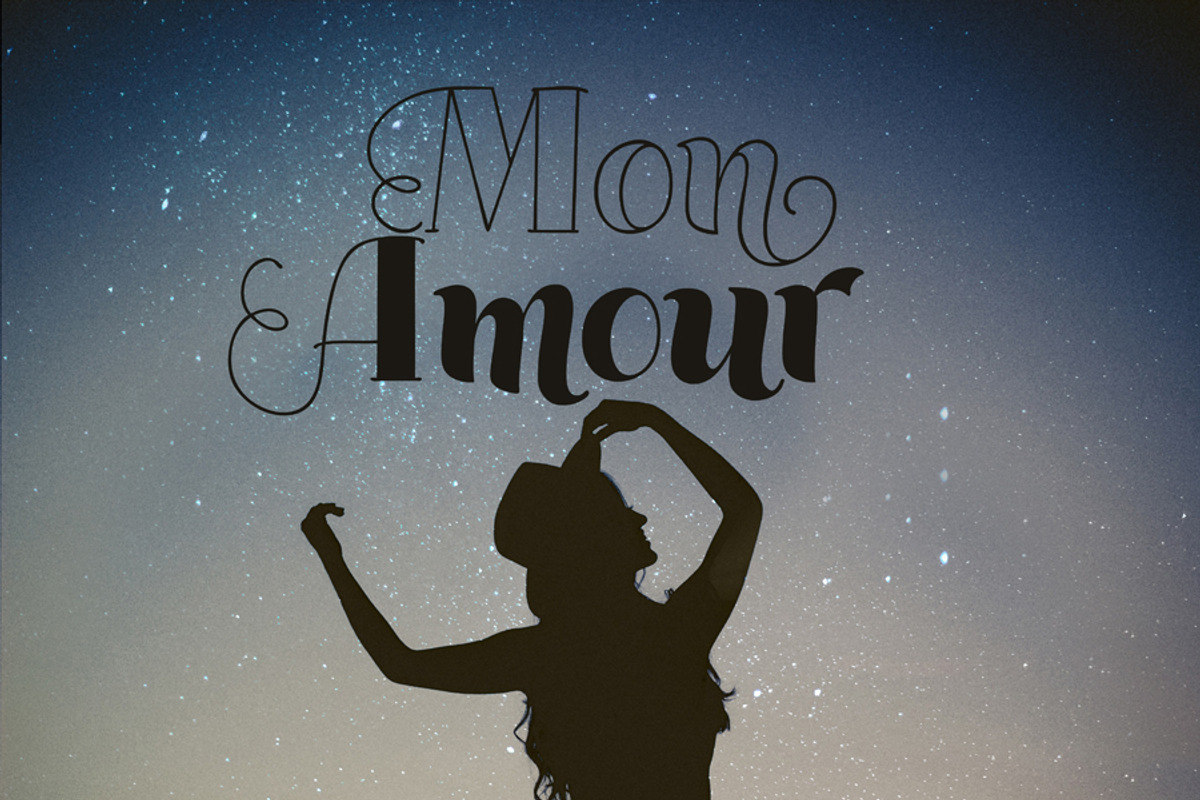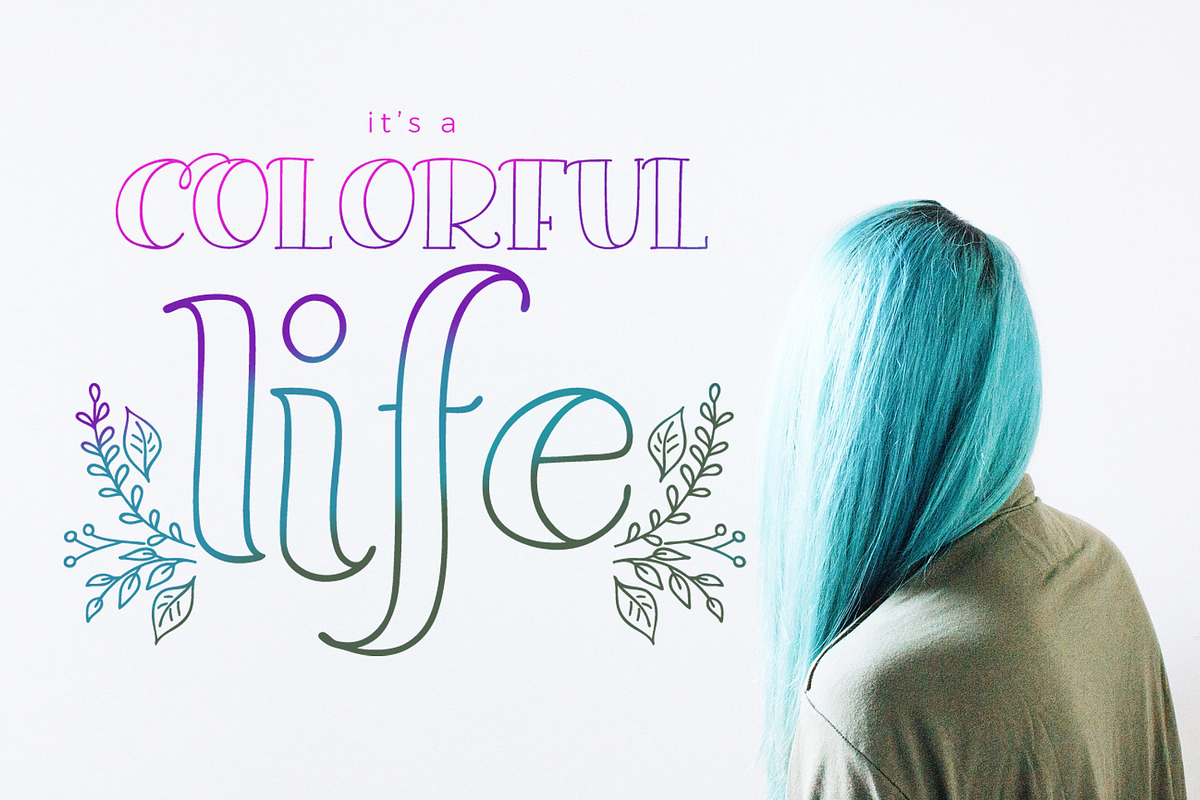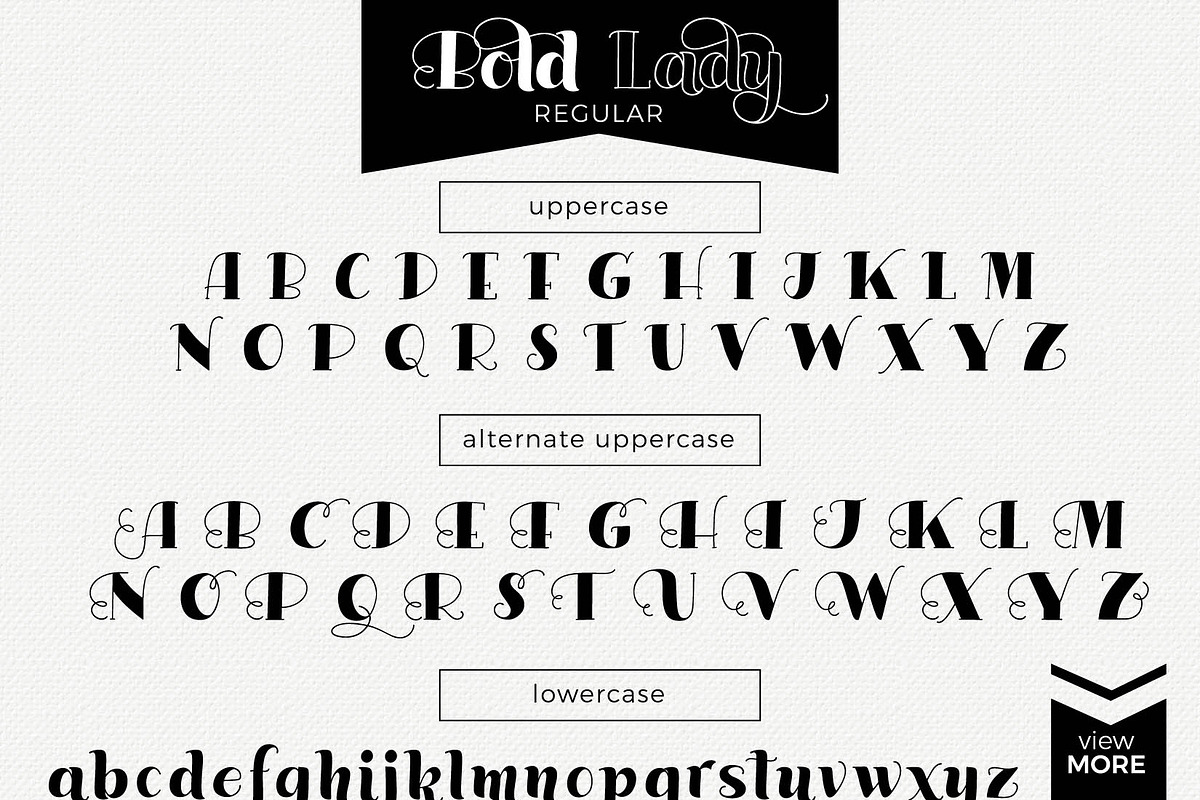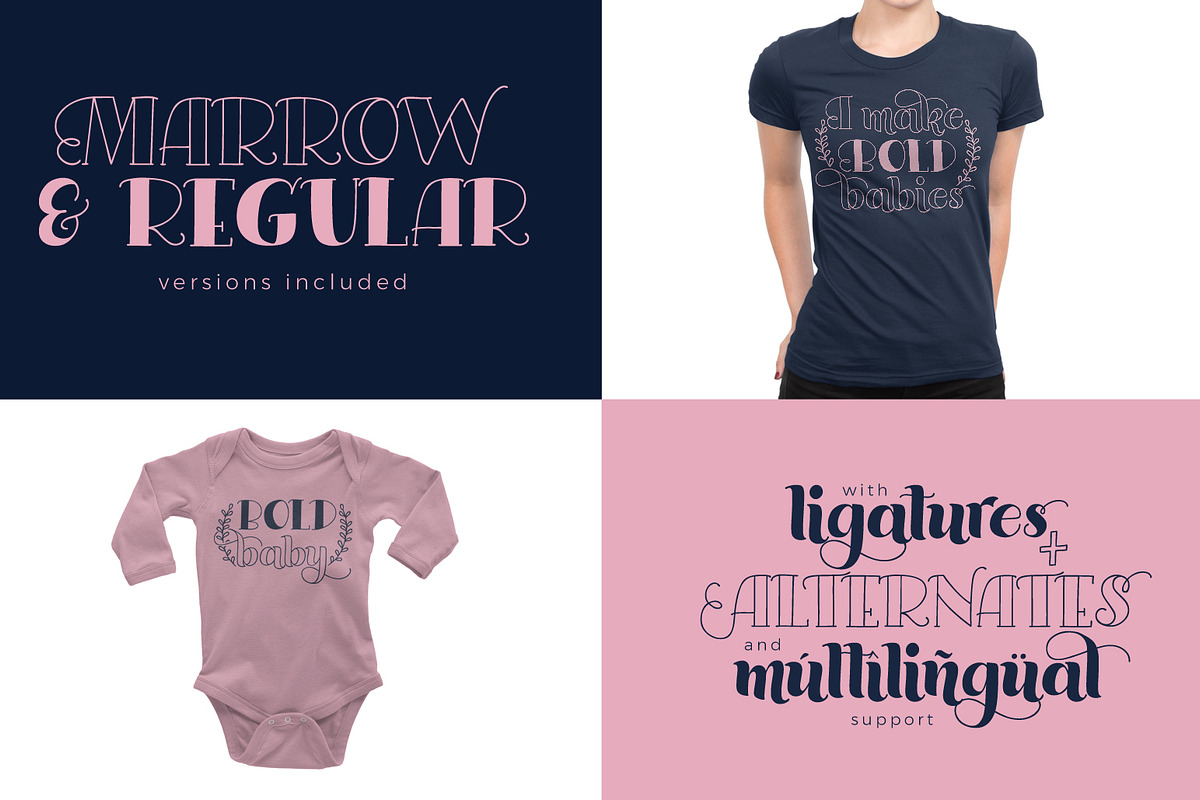
Bold Lady Font duo
Bold Lady Font duo by HowJoyful is a font selected for branding, posters, packaging, typography.
- Bold Lady is a hand-lettered font duo that includes a full secondary alphabet of alternates (uppercase and lowercase) as well as the Regular
- Coded OpenType features: stylistic alternates, swashes, and ligatures Printable PDF guide of all characters All extras and catchwords are in
- Multilingual support is included for Western, Central and South-Eastern European languages.
- Bold Lady is a hand-lettered font duo that includes a full secondary alphabet of alternates (uppercase and lowercase) as well as the Regular
- Coded OpenType features: stylistic alternates, swashes, and ligatures Printable PDF guide of all characters All extras and catchwords are in
- Multilingual support is included for Western, Central and South-Eastern European languages.
- stylistic alternates, swashes, and ligatures
- Bold Lady Regular
- Bold Lady Marrow